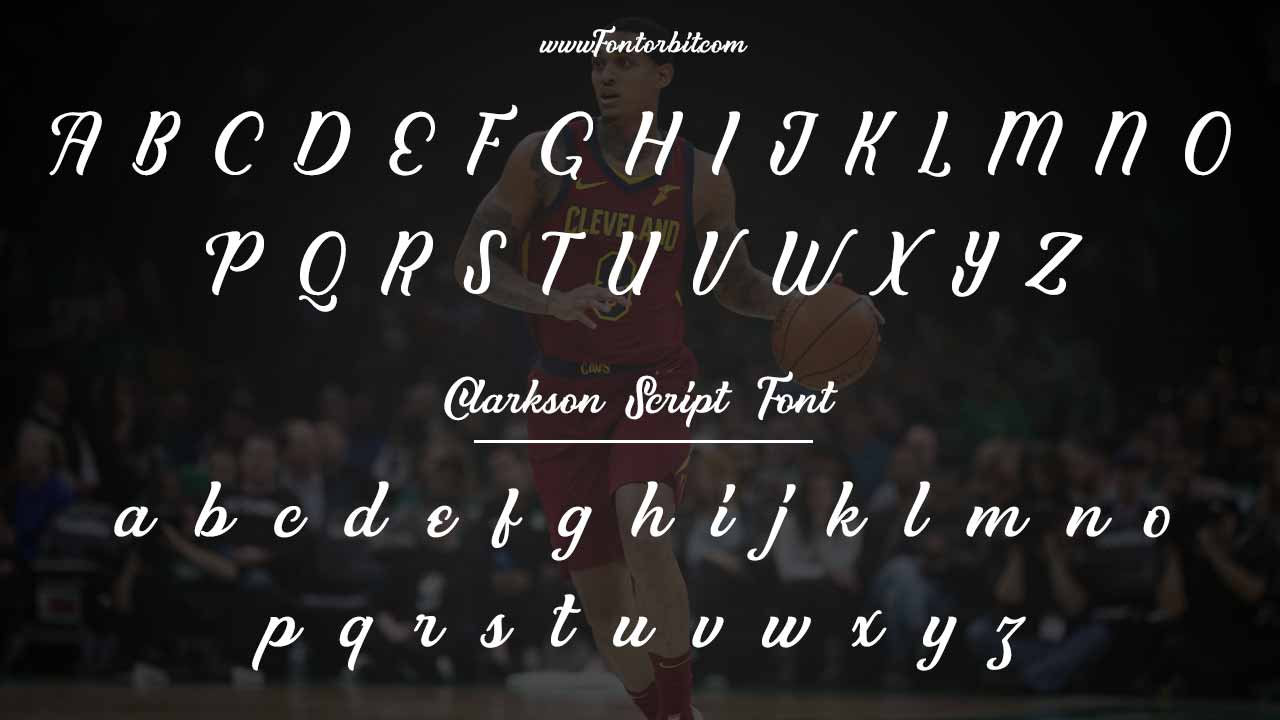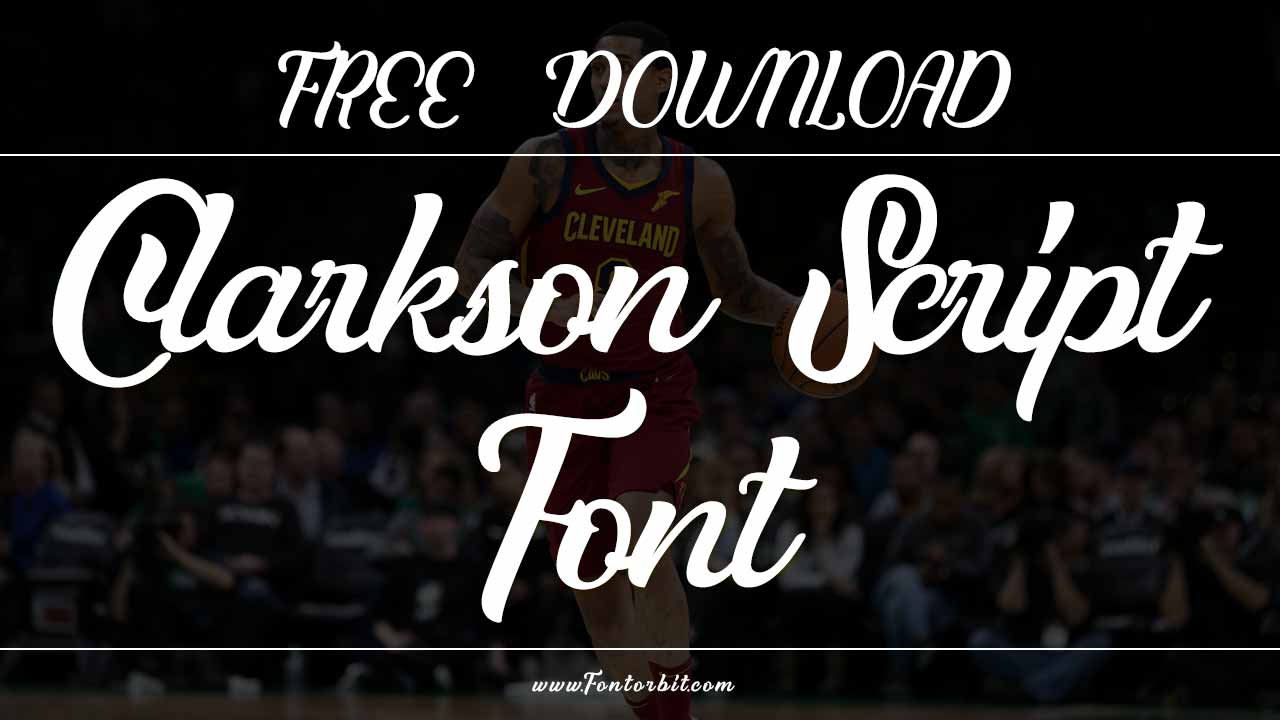
Clarkson Script Font is a modern, handwritten typeface designed for elegance and versatility. Developed by Adam Fathony, it features over 550 characters, including ligatures, alternate characters, and initial forms. Its smooth, clean design makes it ideal for branding, logotypes, and digital lettering arts. Whether you’re crafting sophisticated logos or stylish captions, Clarkson Script delivers charm and readability in every stroke.
The Creative Vision Behind Clarkson Script Font
Adam Fathony, a respected font designer, created Clarkson Script with an emphasis on fluidity and sophistication. The font is carefully crafted for easy digital lettering while maintaining an authentic handwritten feel. Fathony’s work aligns with prominent designers like François Rappo and DIA Studio, both known for their contributions to typeface design and clean aesthetics. Clarkson Script is designed to balance artistic expression with practical usability, making it a favorite among designers.
Clarkson Script Font Features
- 550+ Characters – Provides extensive flexibility with multiple glyphs.
- Alternate Characters – Enhances design options for unique typography.
- Ligatures – Ensures smooth connections between letterforms for a natural look.
- Initial Forms & Terminal Forms – Adds stylish flourishes for dynamic designs.
- Lowercase & Uppercase Variations – Expands creative possibilities.
Where To Use Clarkson Script Font
Clarkson Script is widely used across different creative fields. Its applications include:
- Branding Design – Perfect for company logos, packaging, and product labels.
- Digital Lettering Arts – Used in social media captions, reader interactions, and content creation.
- Posters & Advertisements – Enhances marketing visuals with elegance.
- Invitations & Event Graphics – Adds sophistication to wedding invites and special event materials.
- Fashion & Luxury Branding – Appeal to high-end apparel aesthetics and accessory branding.
Pairing Clarkson Script With Other Fonts
To maximize its impact, Clarkson Script pairs well with various typefaces:
- Neo-Grotesque Sans (e.g., Helvetica, François Rappo’s work) – For a modern, minimalistic contrast.
- Playfair Display (Serif) – Adds a touch of classic elegance.
- Open Sans (Sans-serif) – Ensures readability in digital formats.
- Raleway (Sans-serif) – Complements minimalist and clean design aesthetics.
- Lora (Serif) – Enhances sophistication and luxury branding.
New Orleans is a city rich in artistic and cultural expression. Its vibrant streets, historic signs, and jazz culture mirror the dynamic nature of Clarkson Script. The font’s fluid strokes and sophisticated curves embody the same timeless charm found in the city’s visual identity. Whether used in signage, music event posters, or branding, Clarkson Script resonates with the artistic heartbeat of New Orleans.
5.Is Clarkson Script Similar To Neo-Grotesque Sans Fonts?
It is primarily a script font but pairs well with neo-grotesque sans fonts for a modern aesthetic.
6.Can I Use This Font For Social Media Captions?
Yes, Clarkson Script is great for captions, reader interactions, and elegant social media posts.
7.What Makes Clarkson Script Unique?
It offers a balance of sophistication and ease of digital lettering, making it perfect for both professional and creative projects.